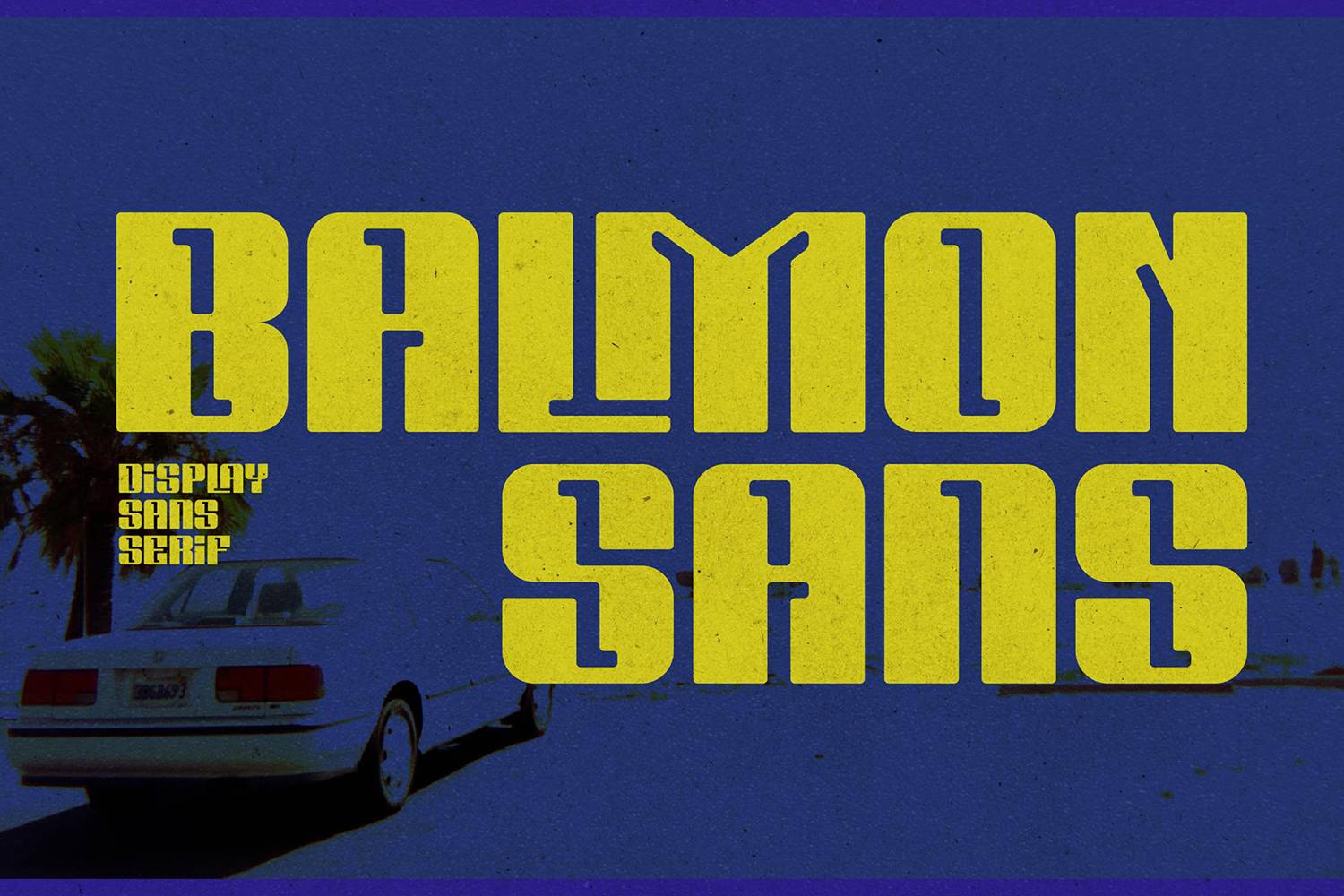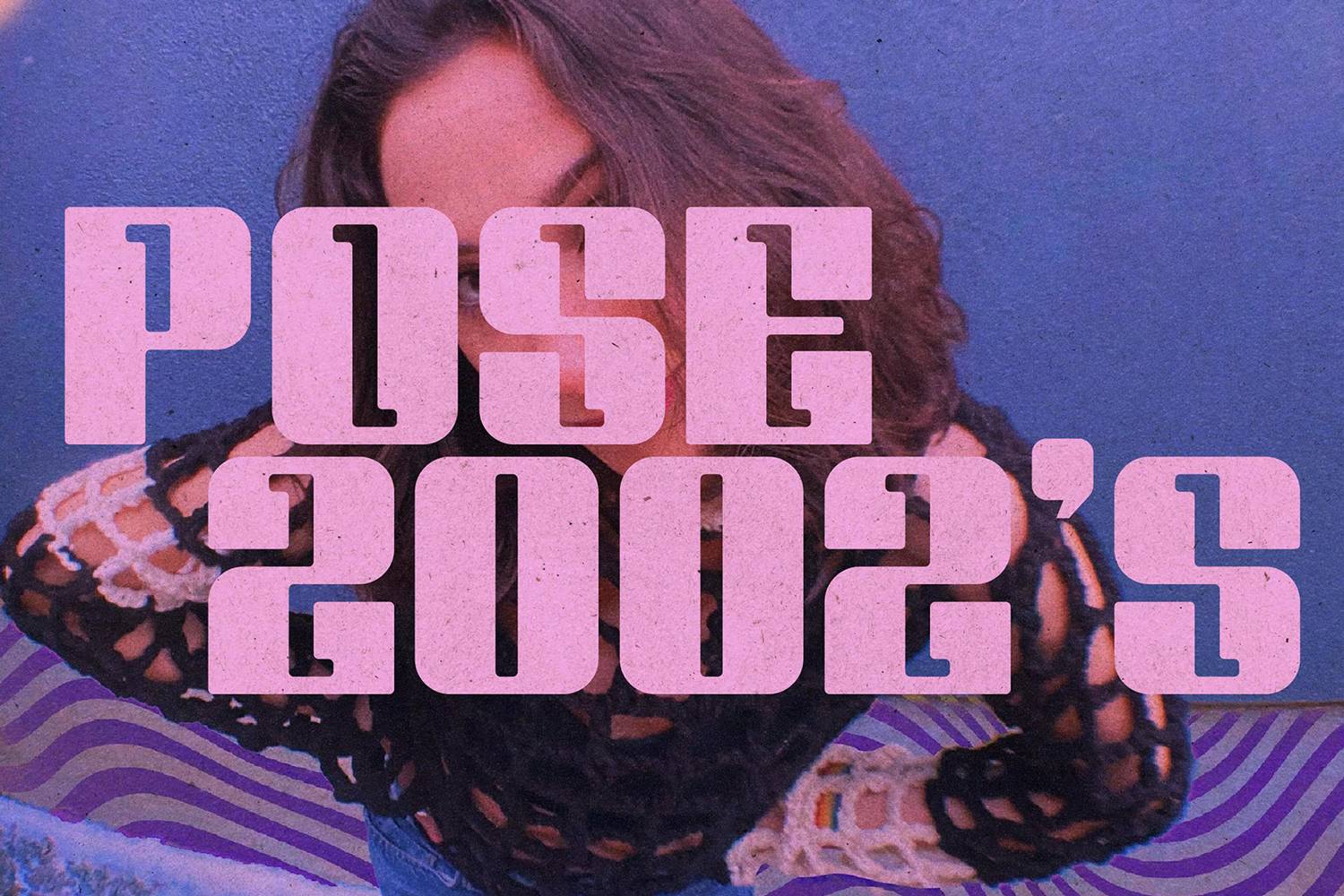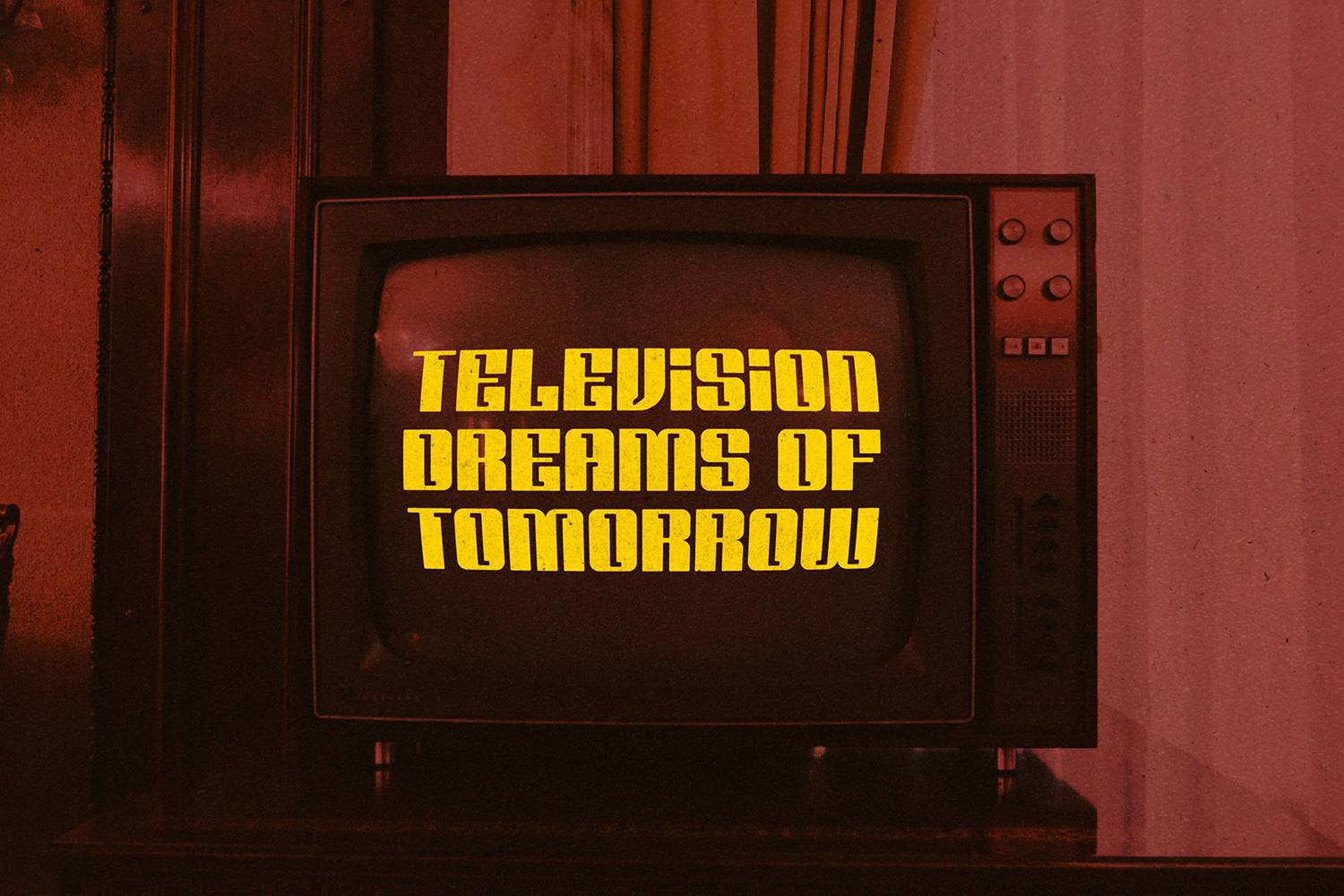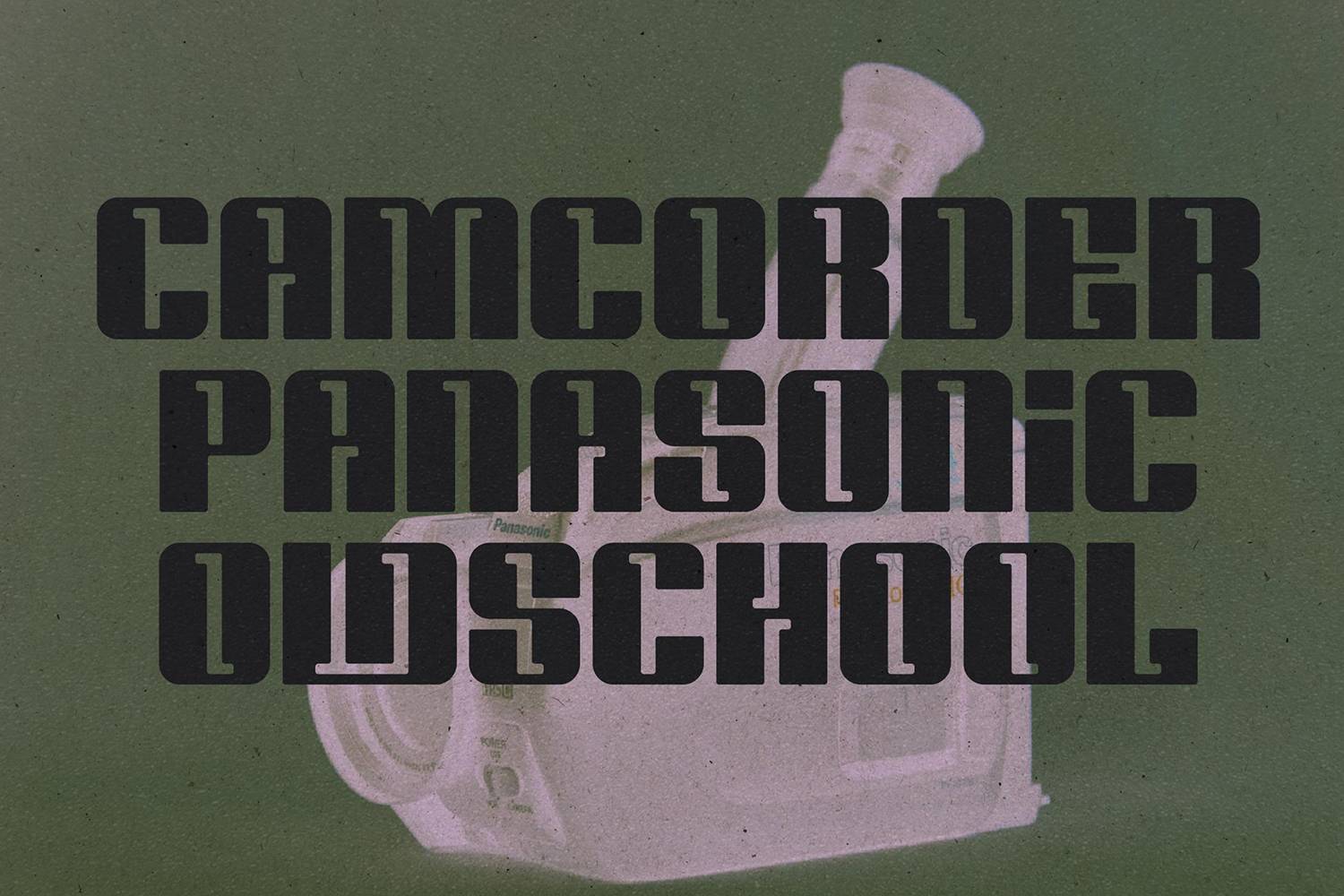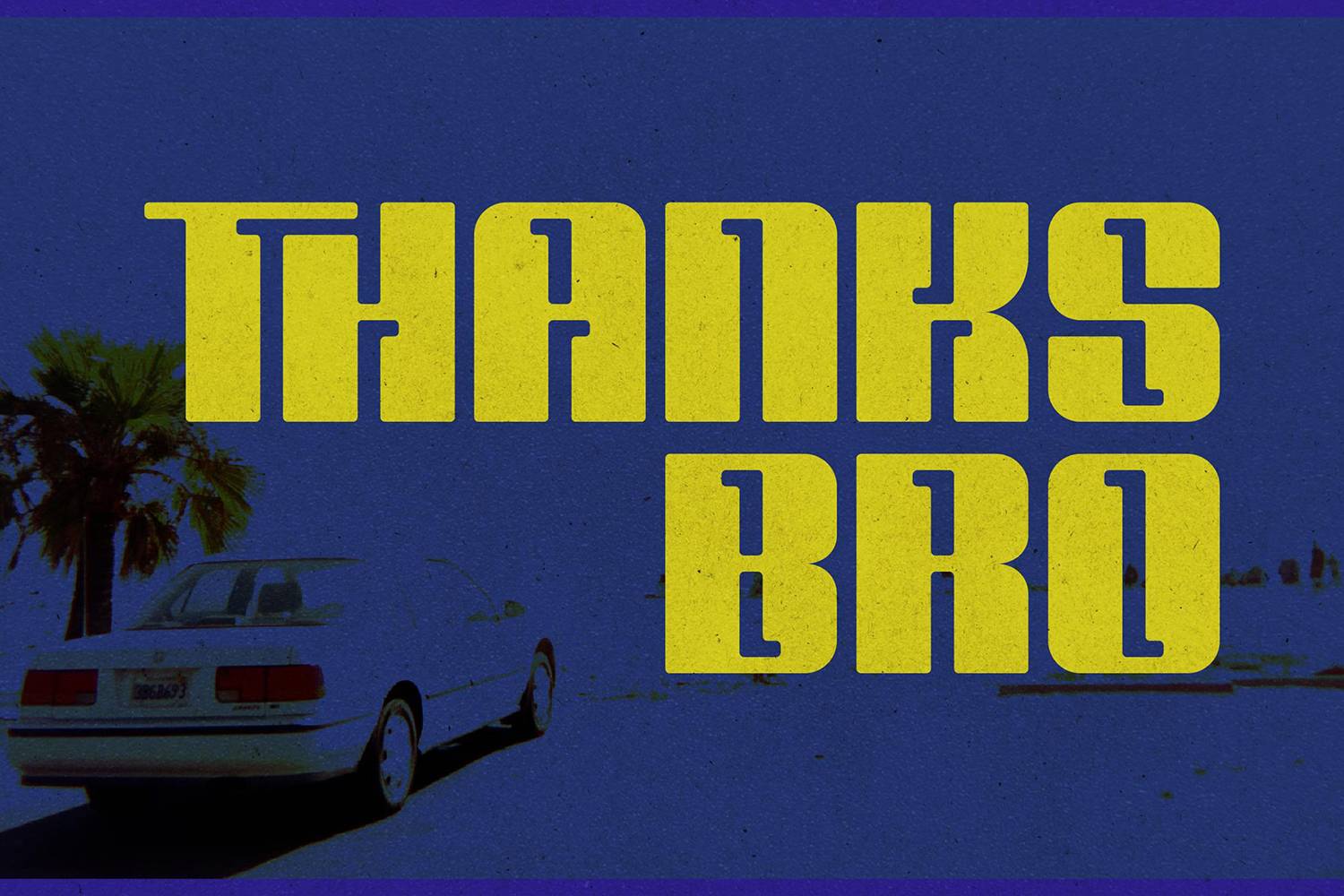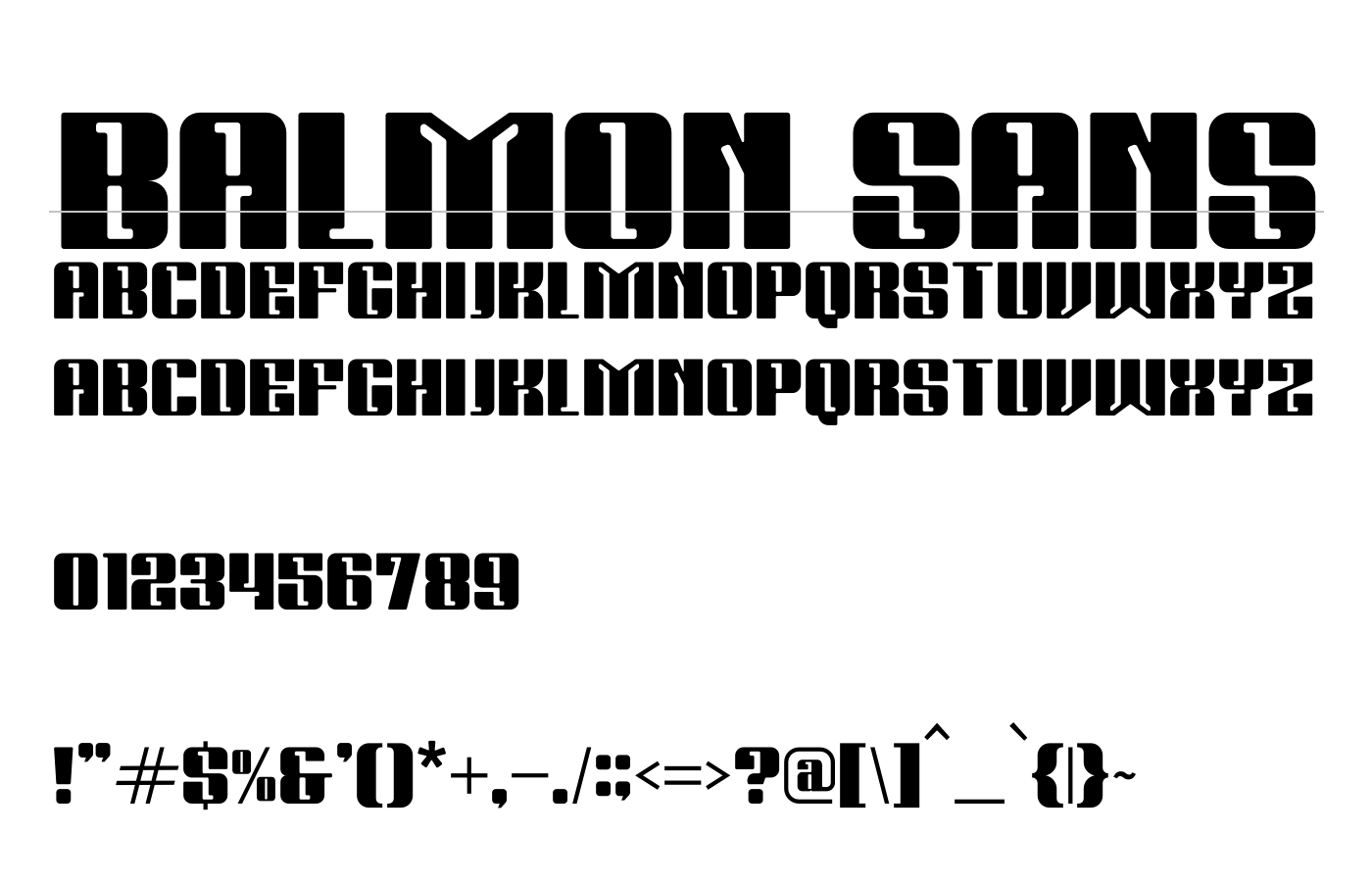
Balmon Sans is a bold, condensed sans serif font with a strong, industrial feel characterized by its blocky, geometric shapes and distinctive cut-out details within the letterforms. Its high weight and tight spacing make it ideal for impactful headlines, logos, and branding that demand attention and convey strength and modernity. This font works especially well in contexts like posters, packaging, or fashion branding where a bold, eye-catching statement is needed.
Balmon Sans Font
About Balmon Sans Font